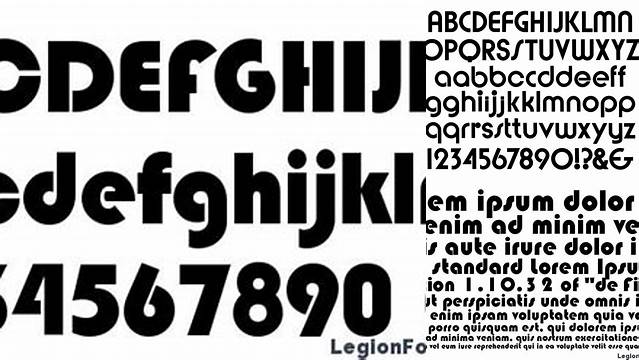
Blippo Black Font: Free Download & Design Guide
Hey guys! Are you on the hunt for that perfect, bold font to make your designs pop? Look no further! Today, we're diving deep into the world of Blippo Black font, a typeface that screams retro cool and modern versatility all at once. Whether you're a seasoned designer or just starting out, understanding the nuances of fonts like Blippo Black can seriously up your creative game. So, let's get started and explore everything you need to know about this iconic font, including where to find blippo black font free download resources.
What Makes Blippo Black So Special?
Blippo Black font isn't just another typeface; it's a statement. Imagine a font that's both playful and powerful, with rounded edges that exude friendliness but a weight that commands attention. That's Blippo Black in a nutshell. Its unique characteristics make it incredibly versatile for a wide range of projects. Think vintage posters, eye-catching logos, attention-grabbing headlines, and even quirky website designs. The magic of Blippo Black lies in its ability to evoke a sense of nostalgia while still feeling fresh and contemporary.
First off, let's talk about its history. Blippo Black was originally designed by the legendary German typographer Wilhelm Bilz in the late 1960s. This era was all about pushing boundaries in design, and Blippo Black perfectly embodies that spirit. Its rounded, almost cartoonish shapes were a departure from the more serious, traditional fonts of the time. This rebellious attitude is part of what gives Blippo Black its enduring appeal. The font's thick, heavy strokes make it incredibly legible, even at large sizes, which is why it's so effective for headlines and titles. But don't let its boldness fool you; the soft curves prevent it from feeling too harsh or aggressive. It's this balance that makes Blippo Black so unique and adaptable.
One of the reasons Blippo Black font remains a favorite among designers is its ability to stand out in a crowded visual landscape. In a world saturated with sleek, minimalist fonts, Blippo Black offers a refreshing dose of personality. It's a font that says, “Hey, look at me!” without being obnoxious. This makes it an excellent choice for branding projects where you want to create a memorable and distinctive identity. Think about logos, packaging, and marketing materials – Blippo Black can add that extra touch of flair that sets your brand apart. The font's versatility extends to various design applications. Whether you're working on a digital project like a website or social media graphic, or a print project like a poster or magazine layout, Blippo Black can seamlessly integrate into your design. Its bold presence ensures that your message is delivered with impact, no matter the medium.
Tips for Using Blippo Black Effectively
First and foremost, consider the context of your project. Blippo Black is a bold font, so it works best in situations where you want to make a statement. Think headlines, titles, logos, and short bursts of text. It's not the ideal choice for long paragraphs of body text, as its weight can become tiring on the eyes. However, it can be incredibly effective for callouts, quotes, and other short text elements within a larger design. Pairing Blippo Black with the right fonts is also crucial. Because it's such a distinctive typeface, it's best to pair it with simpler, more neutral fonts for body text. Think classic sans-serif fonts like Helvetica or Arial, or even a clean serif font like Times New Roman. These fonts will provide a nice contrast to Blippo Black's boldness without competing for attention. The goal is to create a visual hierarchy where Blippo Black stands out without overpowering the rest of the design.
Color plays a significant role in how Blippo Black is perceived. Its retro vibe lends itself well to vibrant, saturated colors, but it can also look stunning in monochrome designs. Experiment with different color combinations to see what works best for your project. For a vintage feel, try pairing Blippo Black with colors like mustard yellow, avocado green, or burnt orange. For a more modern look, consider using it with bold primary colors or a sleek black-and-white palette. Spacing and layout are other critical factors to consider. Give Blippo Black plenty of room to breathe by using generous letter spacing and line height. This will prevent the text from feeling cramped and allow the font's unique shapes to shine. Pay attention to kerning, the spacing between individual letters, to ensure a visually pleasing and professional result. In terms of layout, consider using Blippo Black as a focal point in your design. Place it strategically to draw the viewer's eye and create a sense of visual interest. You can also use it to create a sense of contrast and balance within your design.
Blippo Black Font: Inspiring Design Ideas
Now that you're armed with this knowledge, go forth and create some stunning designs with Blippo Black! Don't be afraid to experiment and push the boundaries – this font is all about making a statement. And remember, the most important thing is to have fun and let your creativity shine. Happy designing, guys!